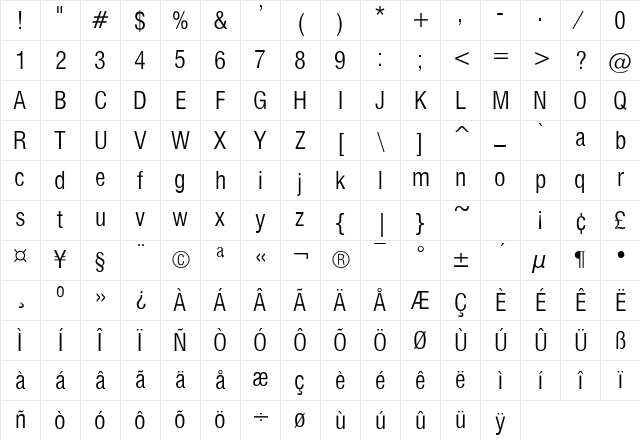
Complete CorporateCondensed Light glyph index. Displaying only characters natively supported by CorporateCondensed Light font.
CorporateCondensed is a composed and adaptable typeface that performs quietly and consistently across a wide range of design contexts. Its slender proportions lend an understated elegance to any composition. Its narrow stance lets it pack a punch even in space-constrained designs.